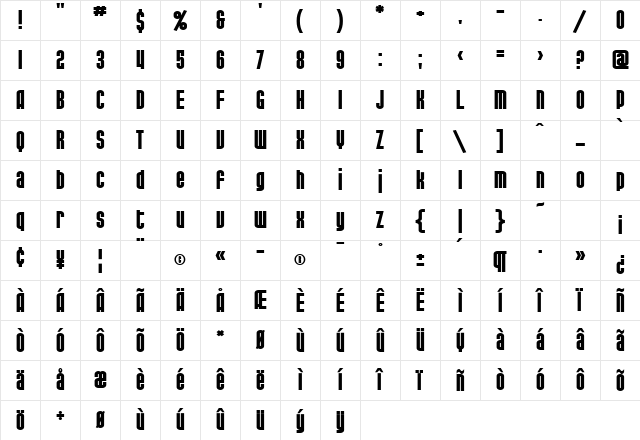
Complete SF Port McKenzie Extended Bold glyph index. Displaying only characters natively supported by SF Port McKenzie Extended Bold font.
SF Port McKenzie Extended is a composed and adaptable typeface that performs quietly and consistently across a wide range of design contexts. Its bold stroke weight gives it real presence on the page.